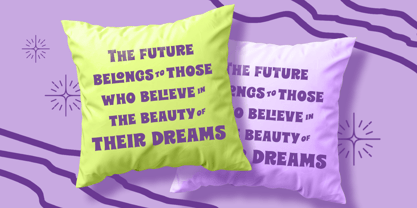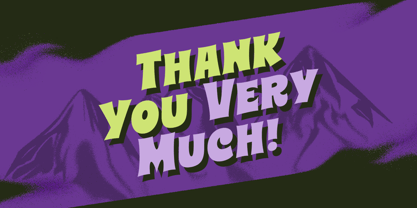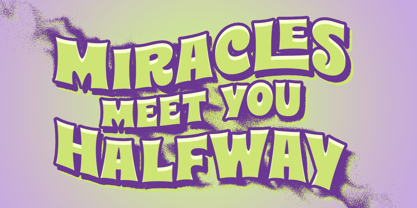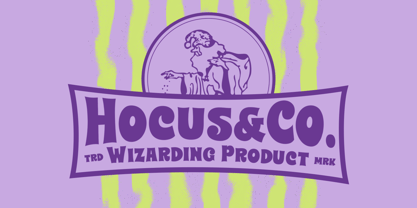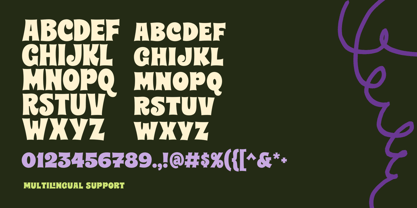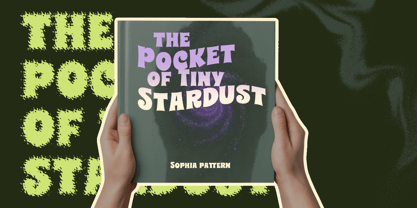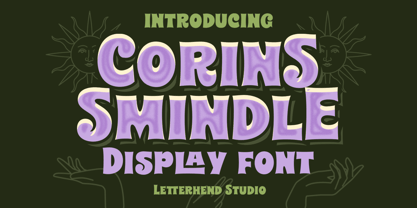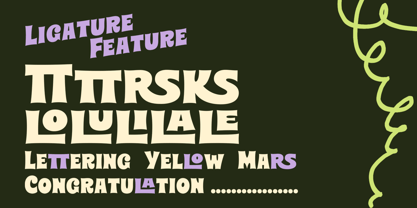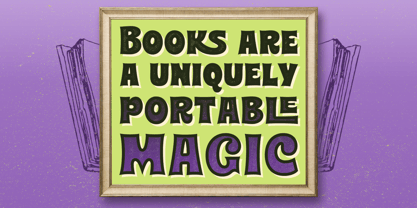
Corins Smindle
by Letterhend
The Corins Smindle Font Family was designed by Hendry Juanda and published by Letterhend. Corins Smindle contains 1 styles. More about this family
Corins Smindle is a groovy, mystical display font with chunky retro curves and a soft, hand-drawn charm that feels straight out of a 70s psychedelic poster. Its thick, rounded forms paired with subtle inner shading give each letter a dreamy, magical glow, perfect for designs that want playful energy with a hint of witchy whimsy. Features : Uppercase & lowercase Numbers and punctuation Alternates & Ligatures Multilingual Support PUA encoded
Designers: Hendry Juanda
Foundry: Letterhend